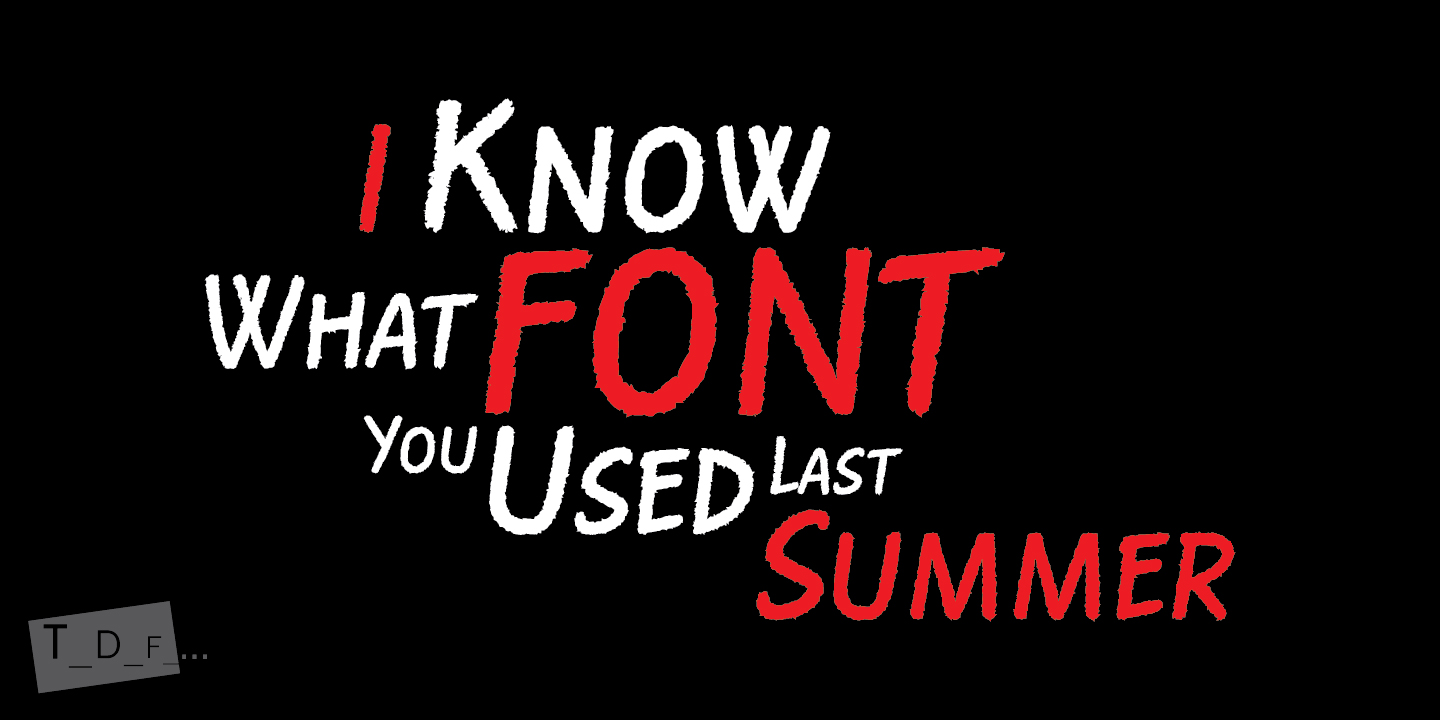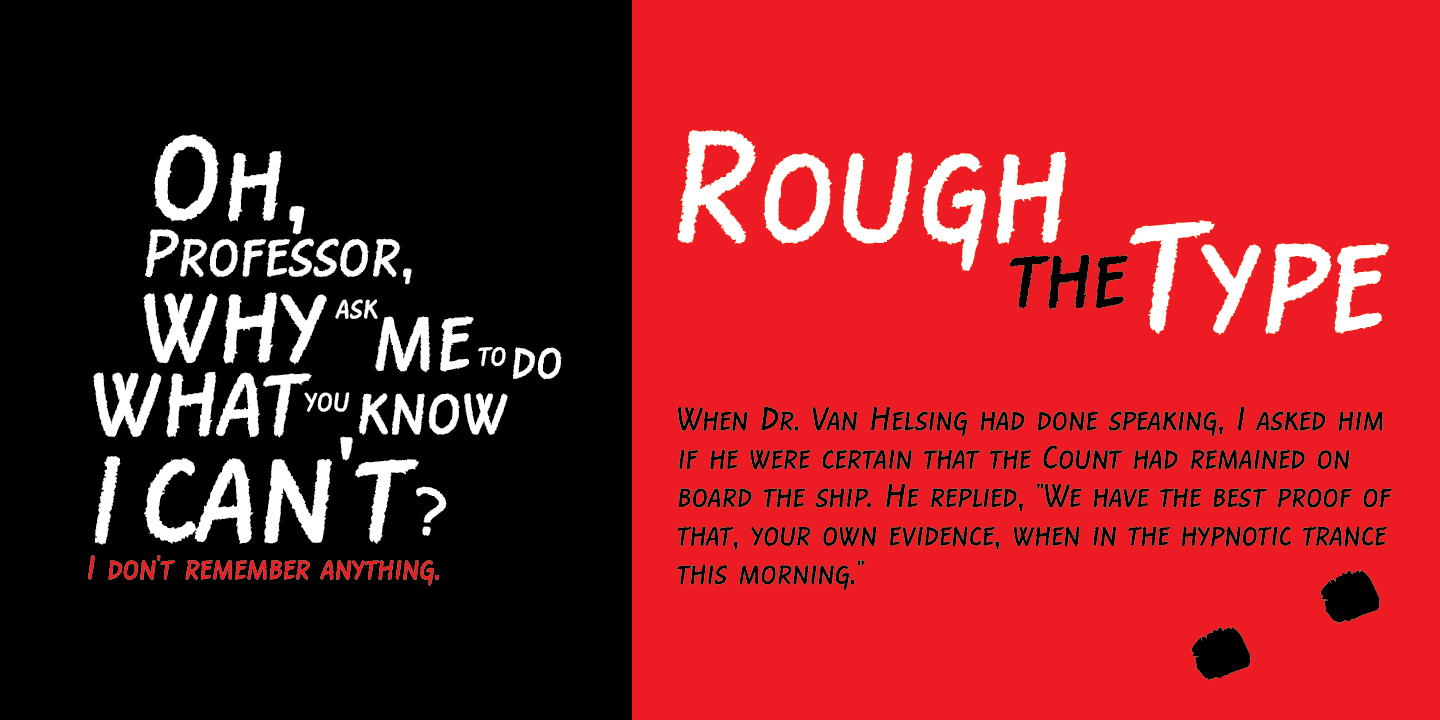
Dusan "Dustin" Jelesijevic wanted to make a font that would be "scary" and "serious" at the same time. Wanna-be-horror and punk-rock-out-of-beers typeface's style invites all interest minors and adults to use this fonts for miscellaneous rebel-yeah situations. For example, if you like to protest in a public against Tour De Force font foundry, please write transparencies using this font, it will hurt us bad. Just don't hack our site with message written in Rough the Type. If you write with West European characters, love being nerdy and to kick some schmucks in the brain, Rough the Type is at your service. And remember - I know what font you used last summer!!!